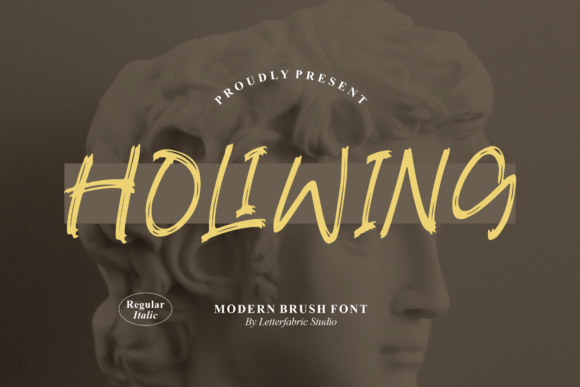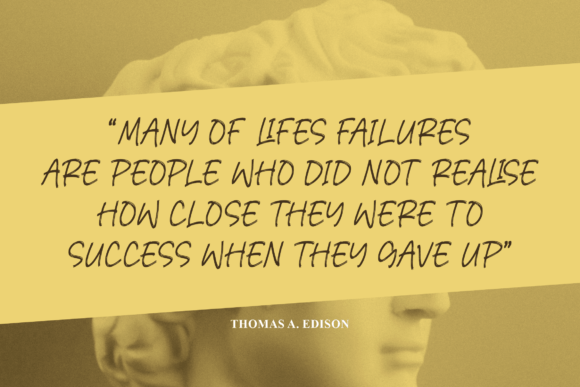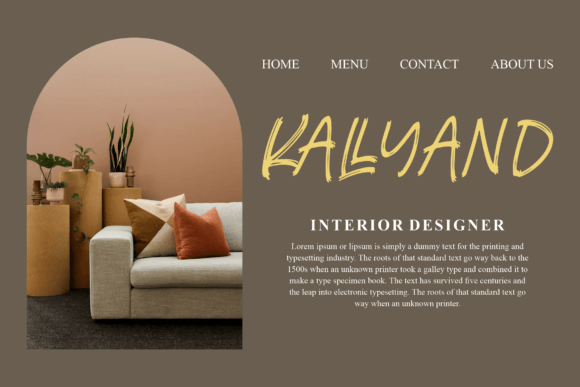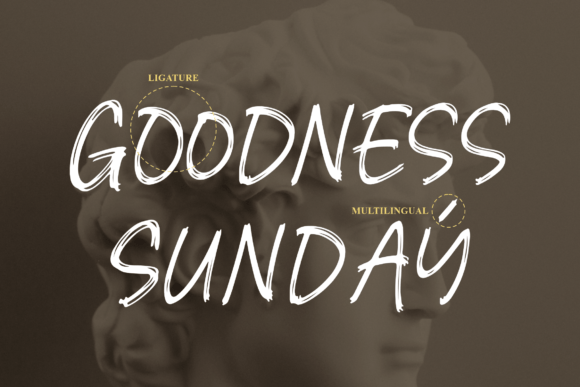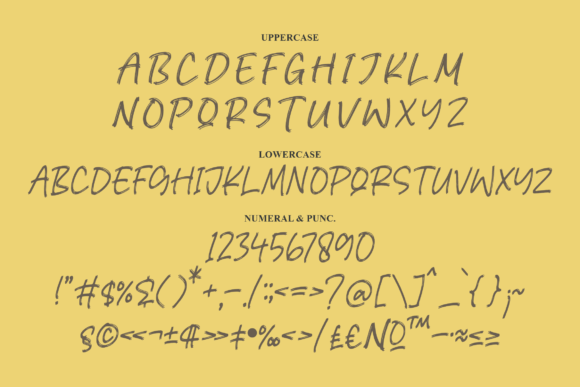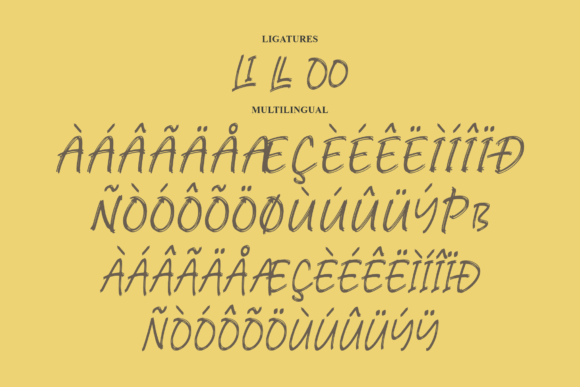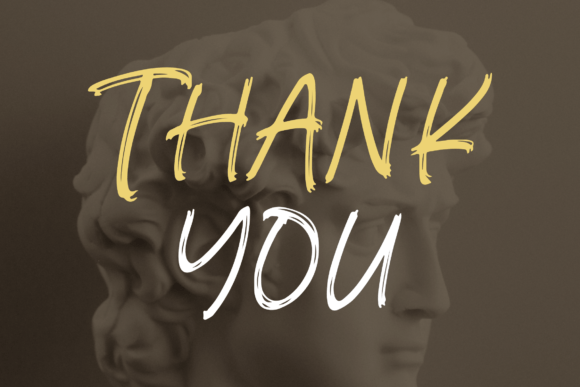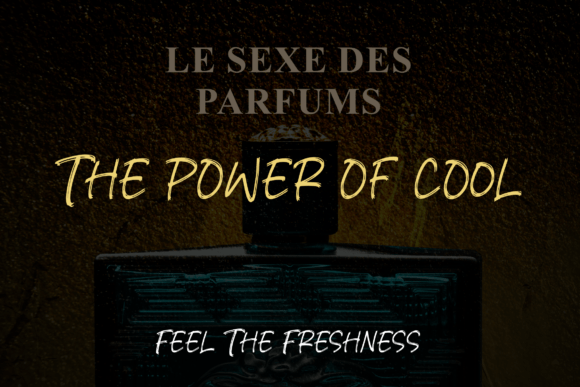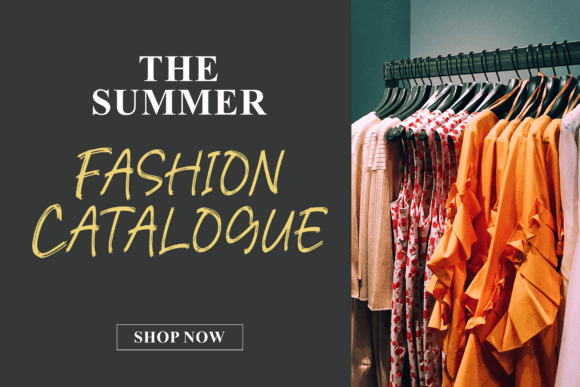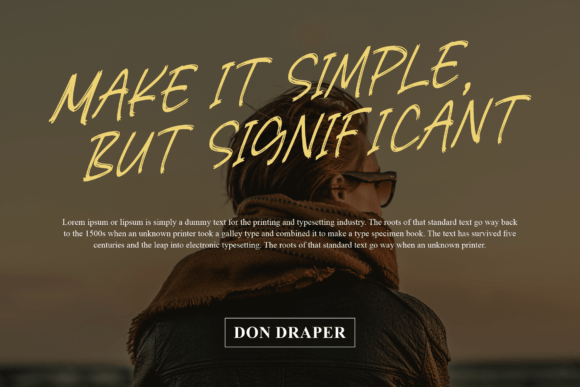
Holiwing Font
About Holiwing Font
**Holiwing Font: Where Modernity Meets Handwritten Elegance**
Introducing “Holiwing,” a modern handwritten font crafted to bring a contemporary touch to a classic script style. Perfectly suited for a myriad of projects, from logos to product packaging, Holiwing seamlessly blends modernity with handwritten elegance, making it an ideal choice for a variety of creative endeavors.
At the core of “Holiwing” is a harmonious fusion of modernity and handwritten charm. The font’s contemporary style lends it a sleek and sophisticated appearance, while maintaining the timeless elegance inherent in classic script fonts. Beyond being a mere typeface, Holiwing transforms your text into a visual masterpiece, adding a layer of refinement to your creative work.
The versatility of “Holiwing” extends across a wide range of creative applications. Picture it enhancing the aesthetics of logos, infusing a sense of modern sophistication into branding, or becoming the signature font for homeware designs that demand a contemporary script. This font becomes a dynamic companion, effortlessly adapting to the essence of your creative vision.
The adaptability of “Holiwing” makes it suitable for various projects across different mediums. Whether you’re designing T-shirts, creating eye-catching posters, or crafting special event invitations, this font becomes the dynamic brushstroke that elevates your work with a beautiful script taste.
In conclusion, “Holiwing” is more than just a font; it’s a harmonious blend of modernity and handwritten elegance. Embrace it, and watch as your designs come alive with a touch of contemporary sophistication. With “Holiwing,” every letter becomes a brushstroke, leaving an indelible mark of modern elegance on your design journey.